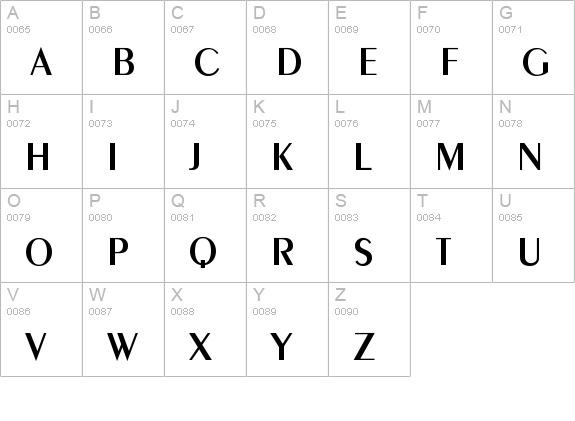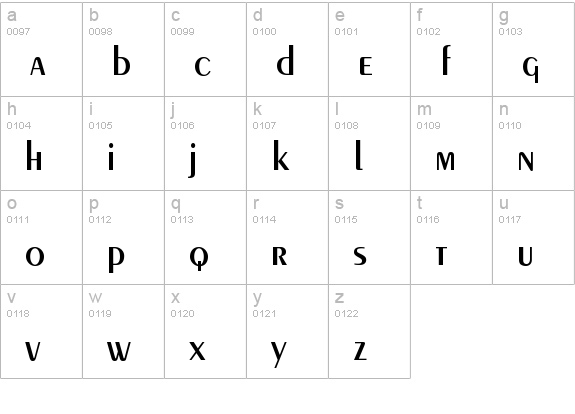
Creme SSi Semi Bold Font Details
Creme SSi Semi Bold is a strong, high-contrast variant in the Creme typeface family \xE2\x80\x94 well suited to headlines, attention-grabbing titles, and strong calls-to-action.
Creme SSi Semi Bold font is a versatile and modern typeface that exudes sophistication and elegance. Its sleek and refined design makes it perfect for a wide range of projects, from branding to editorial design. The semi-bold weight adds a touch of boldness and gravitas to any text, making it stand out while maintaining readability. What sets Creme SSi Semi Bold font apart is not just its aesthetic appeal, but also the fact that it is available for free download at FontsMarket.com. This means that you can access this high-quality font without any cost, making it a valuable addition to your design toolkit. Don't miss out on the opportunity to elevate your designs with the timeless beauty of Creme SSi Semi Bold font - download it for free today!